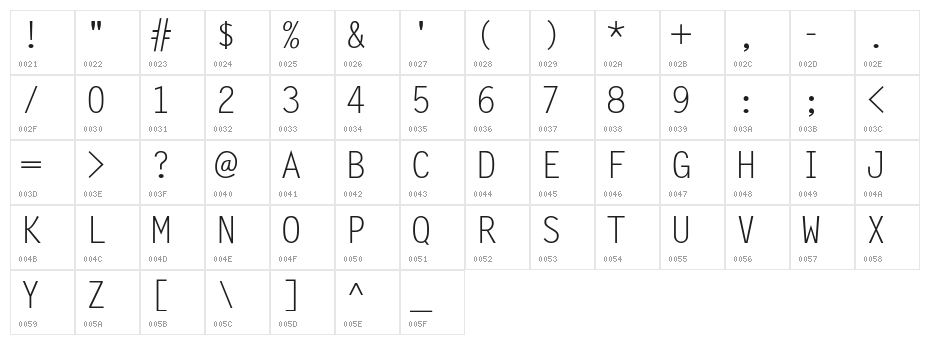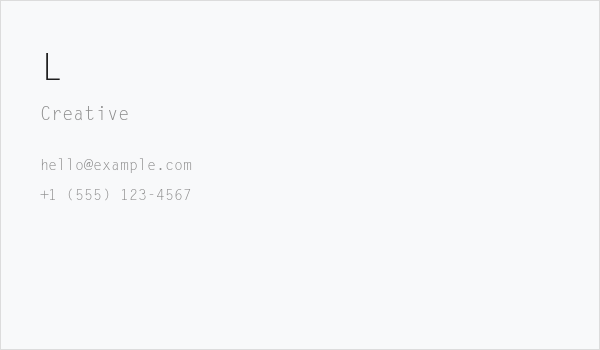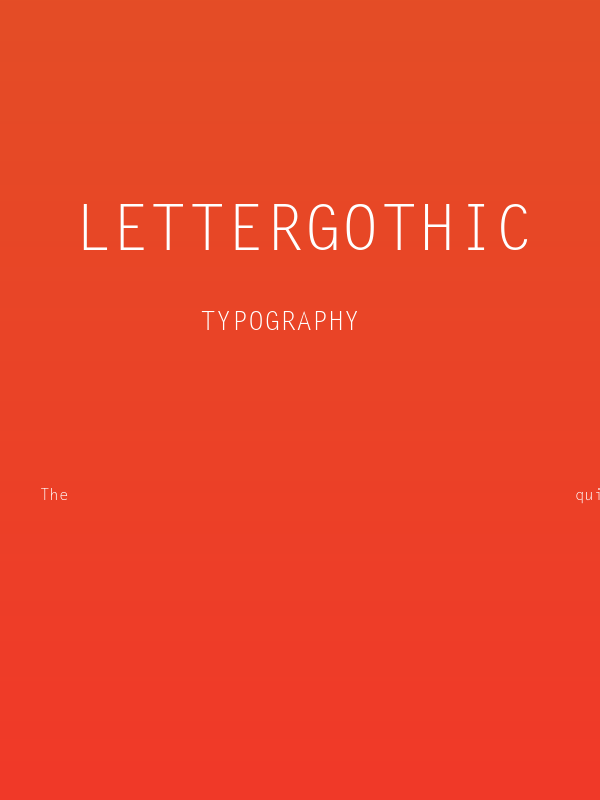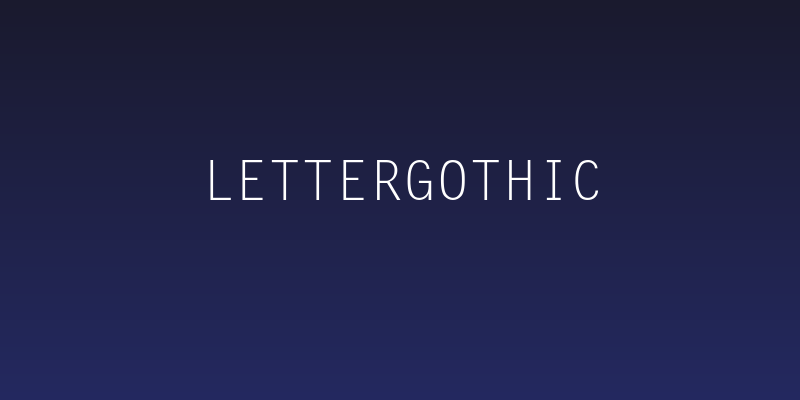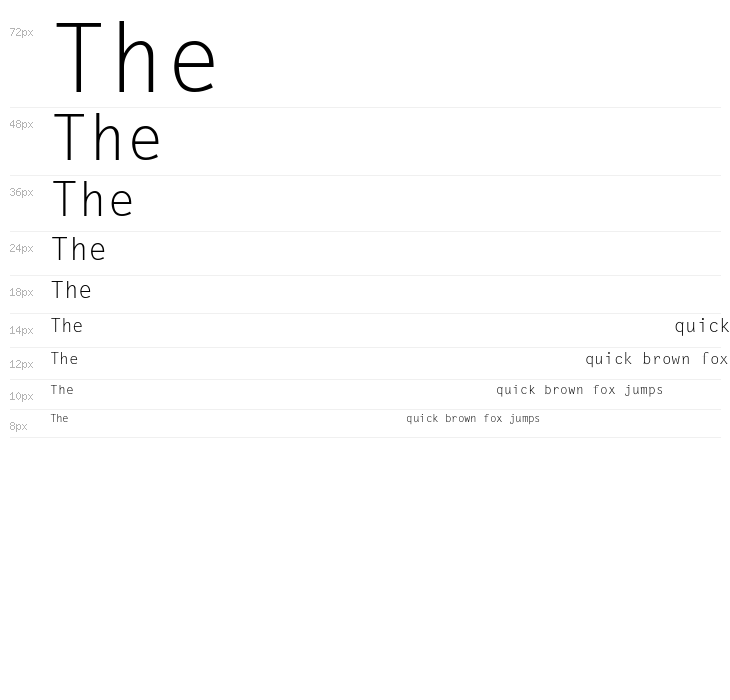
LetterGothic Font
LetterGothic Description
This font features a clean and modern design with a monospaced structure, making it ideal for technical and digital applications. Each character is evenly spaced, providing a uniform appearance that enhances readability. The strokes are consistent in weight, offering a balanced and uncluttered look. The uppercase letters are tall and slightly narrow, while the lowercase letters maintain a similar height, contributing to a cohesive and streamlined aesthetic. The numerals are clear and distinct, ensuring they stand out in any context. Special characters are designed with simplicity in mind, complementing the overall minimalist style of the font.
| Use Case | Coding, Technical documentation, Digital interfaces |
| Proposed Projects | Ideal for coding environments, technical documentation, digital interfaces, and minimalist design projects. |